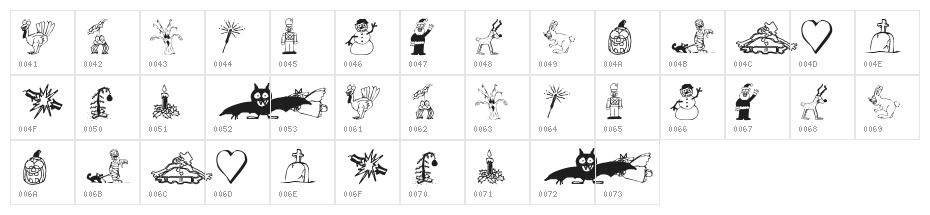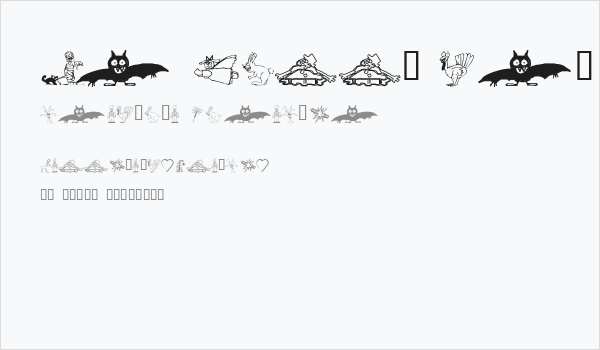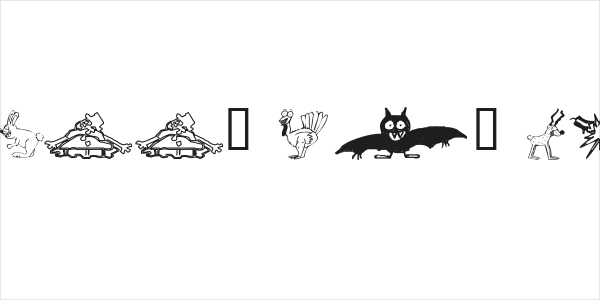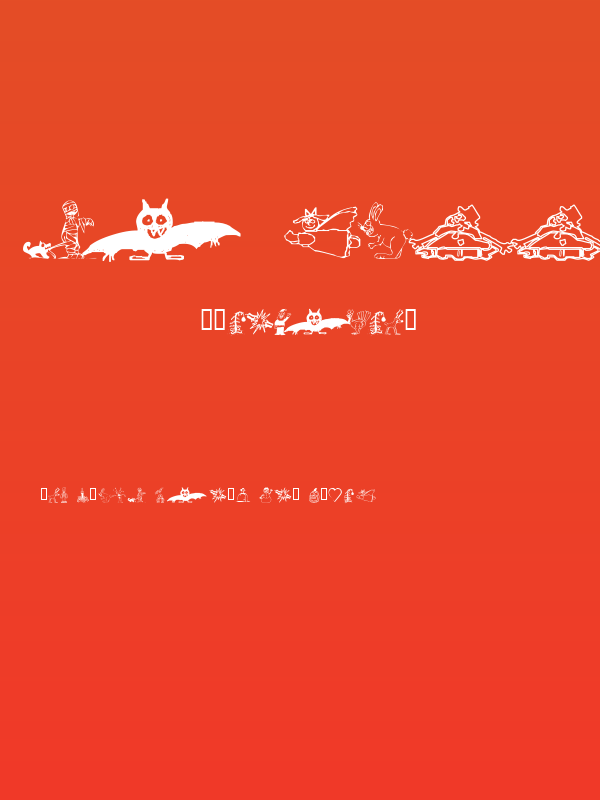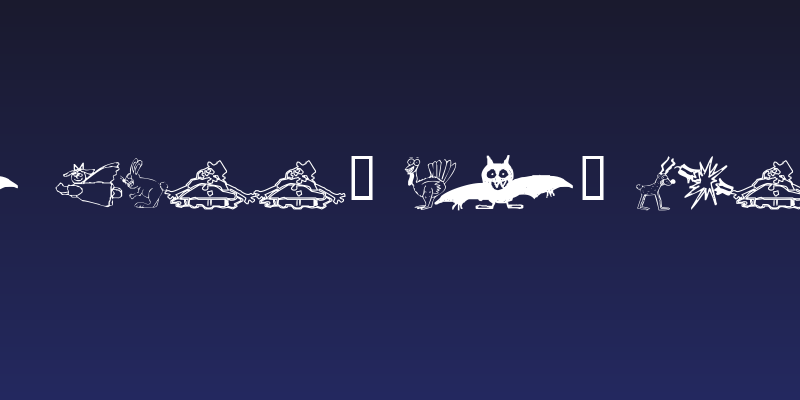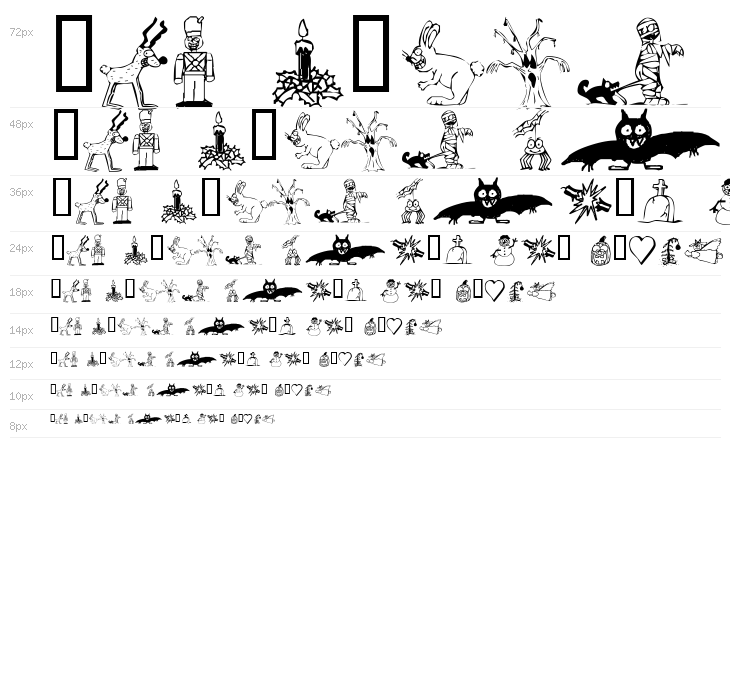
KR Silly Art Holiday Font
KR Silly Art Holiday Description
This is not a traditional font but rather a collection of whimsical holiday-themed illustrations. Each character is represented by a unique drawing, including festive elements such as turkeys, snowmen, pumpkins, and bats. The style is playful and cartoonish, capturing the essence of various holidays with humor and creativity. The illustrations are detailed and expressive, making them suitable for decorative purposes.
| Use Case | Logos, Decorative elements |
| Proposed Projects | Ideal for holiday greeting cards, festive decorations, party invitations, and themed event posters. |